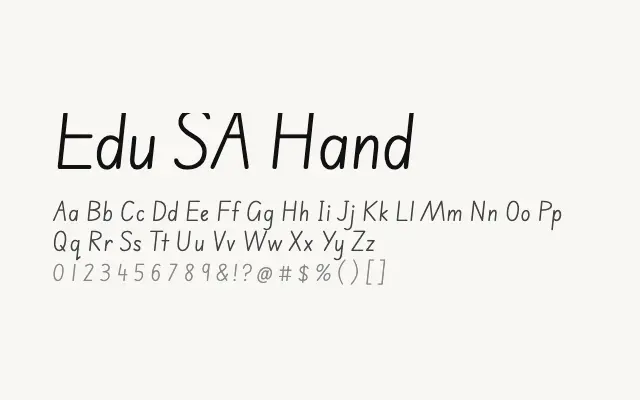
Edu SA Hand
A more fluent South Australian handwriting script reflecting the letterforms students develop beyond the earliest stages of instruction.
Edu SA Hand moves past the strict beginner model to present South Australian letterforms with exit strokes and a more natural, settled handwriting rhythm. Latin Extended support makes it appropriate for a broader range of classroom contexts across South Australia and the Northern Territory. Teachers and educational publishers will find it well-suited to intermediate handwriting worksheets and reading materials.
Represents the South Australian handwriting style at a more progressed stage, incorporating exit strokes and a slightly more relaxed, natural letterform construction. Designed to model the handwriting style students work towards beyond the beginner stage.